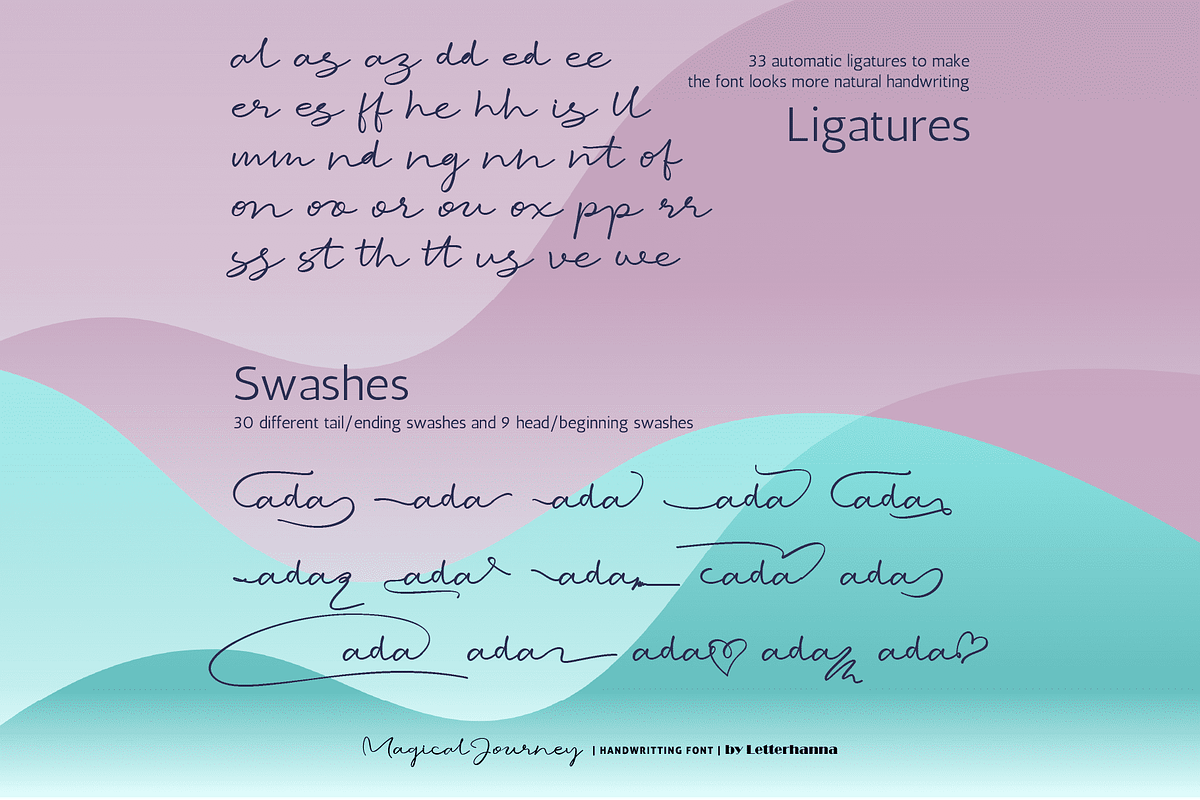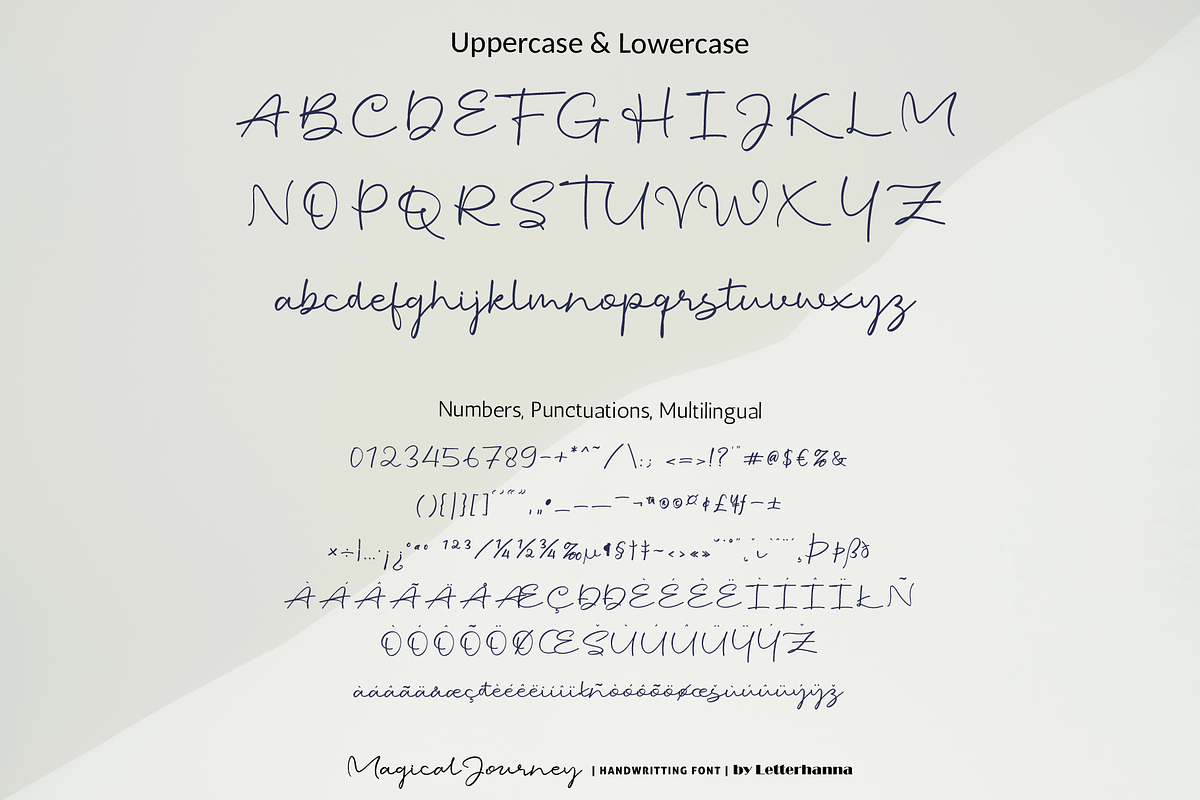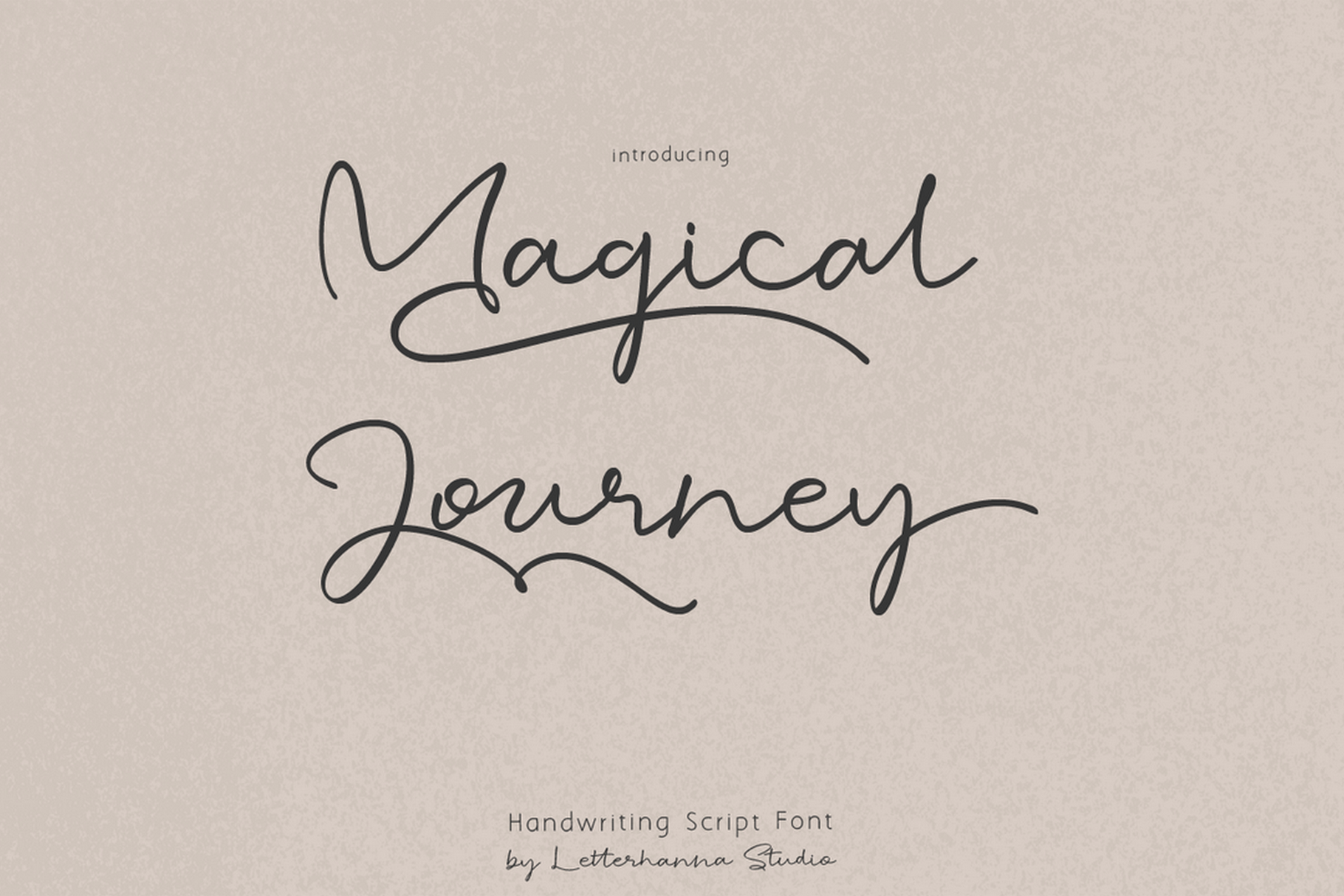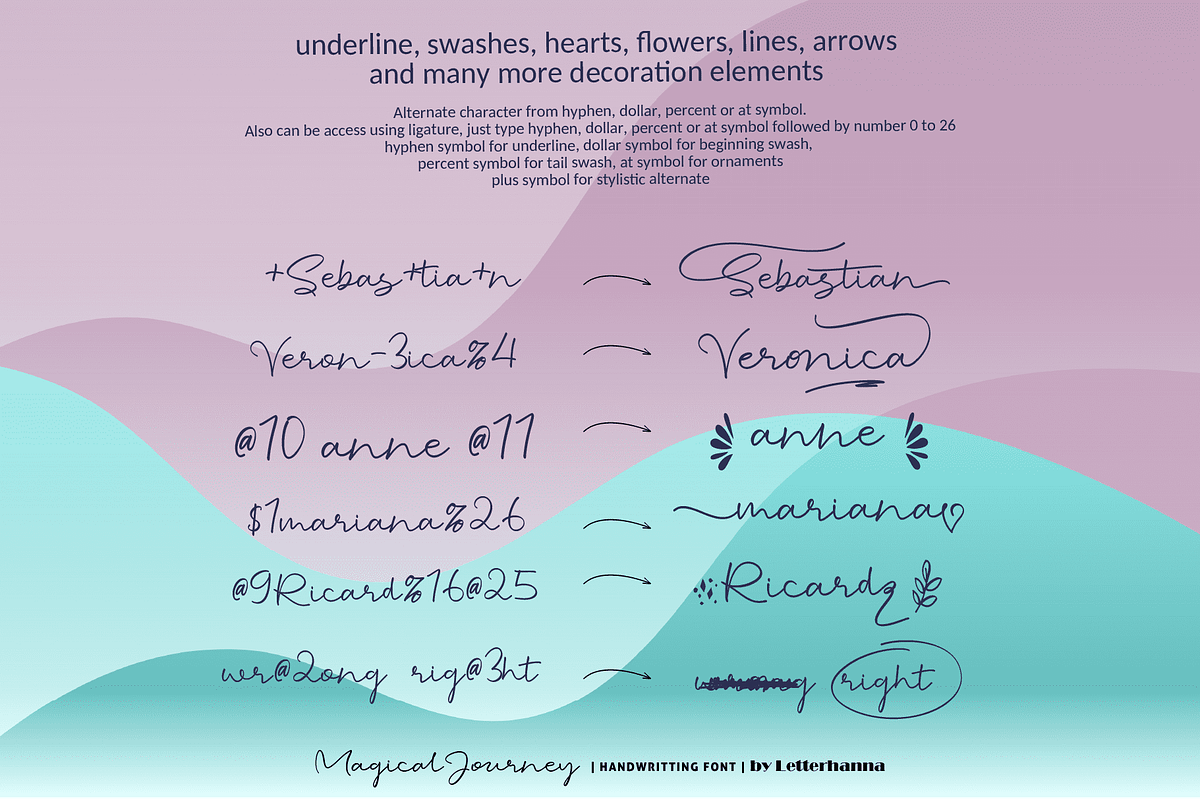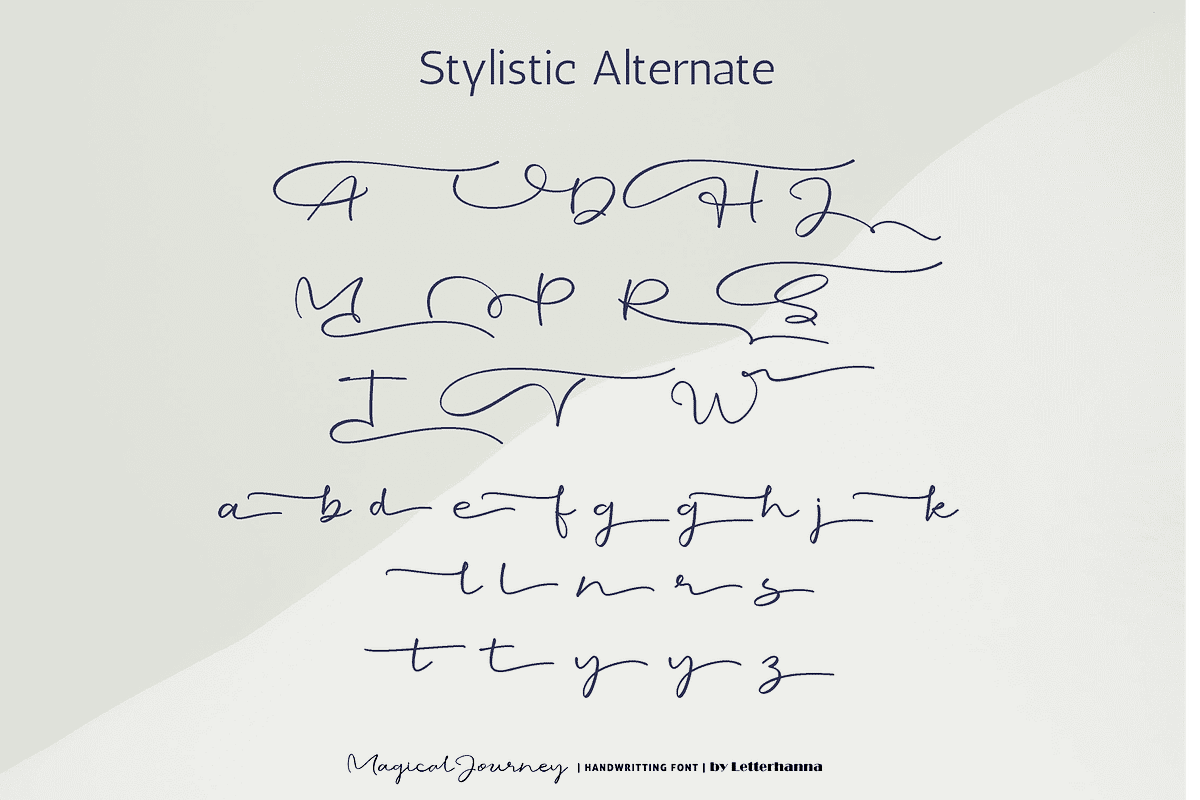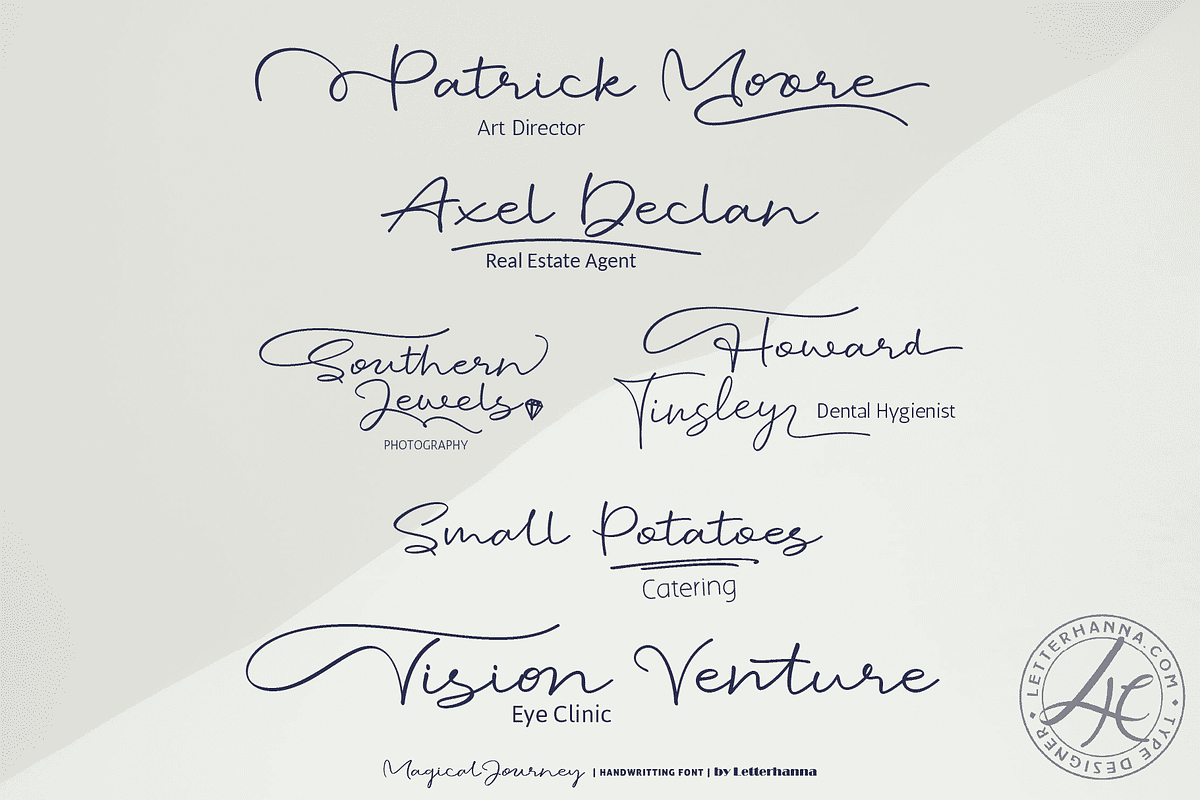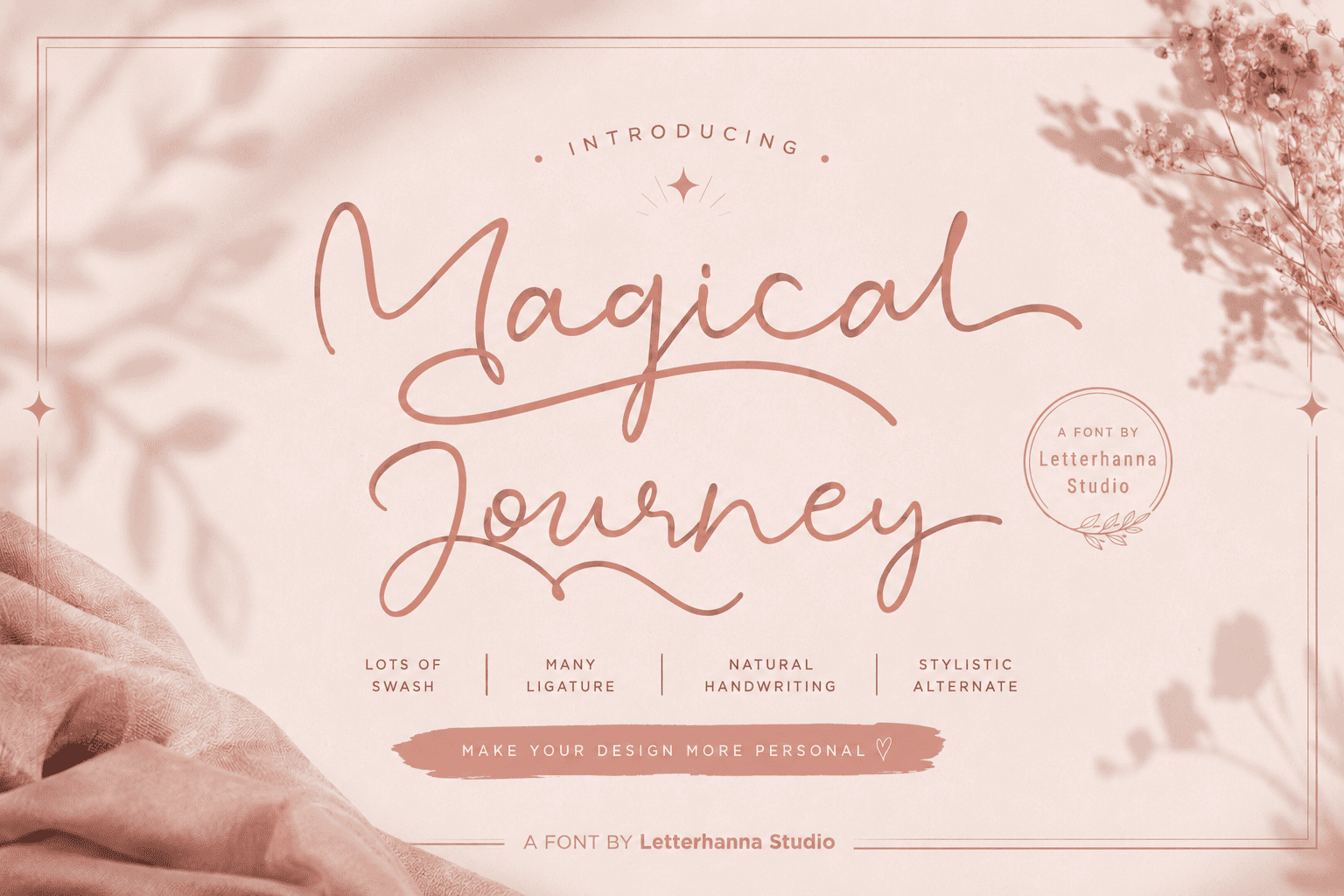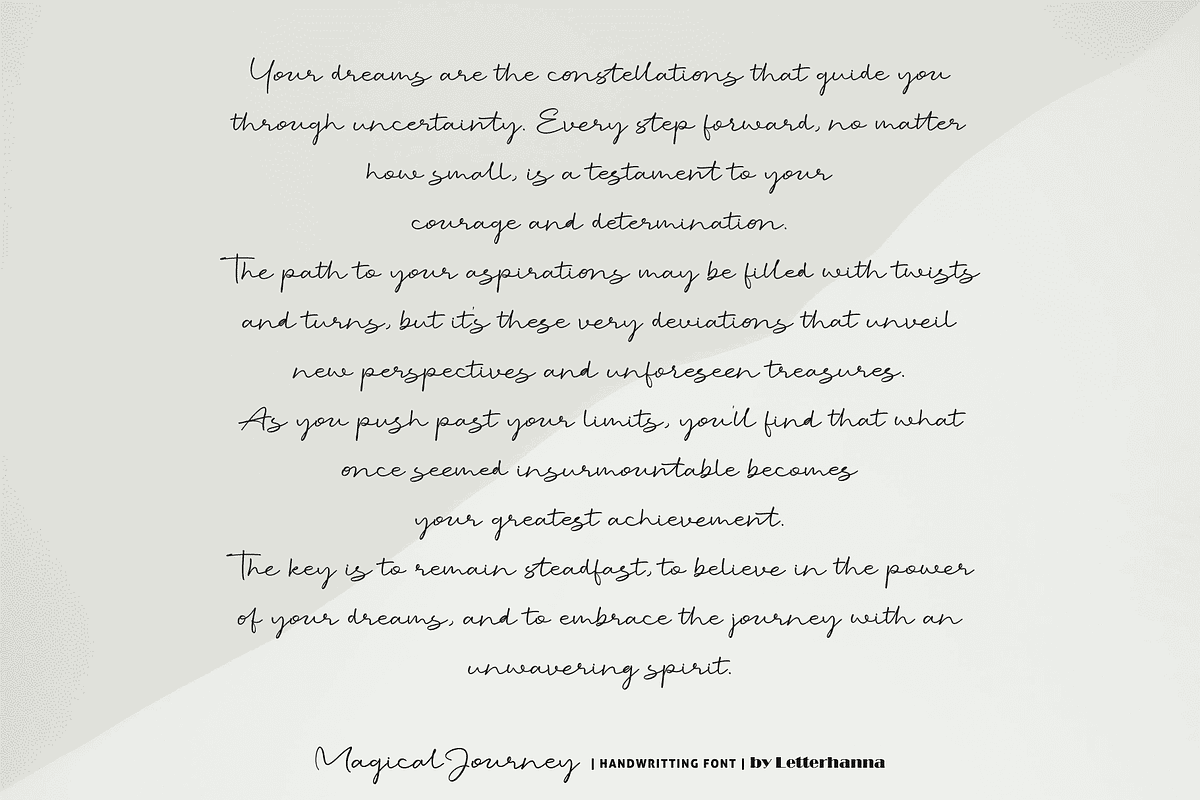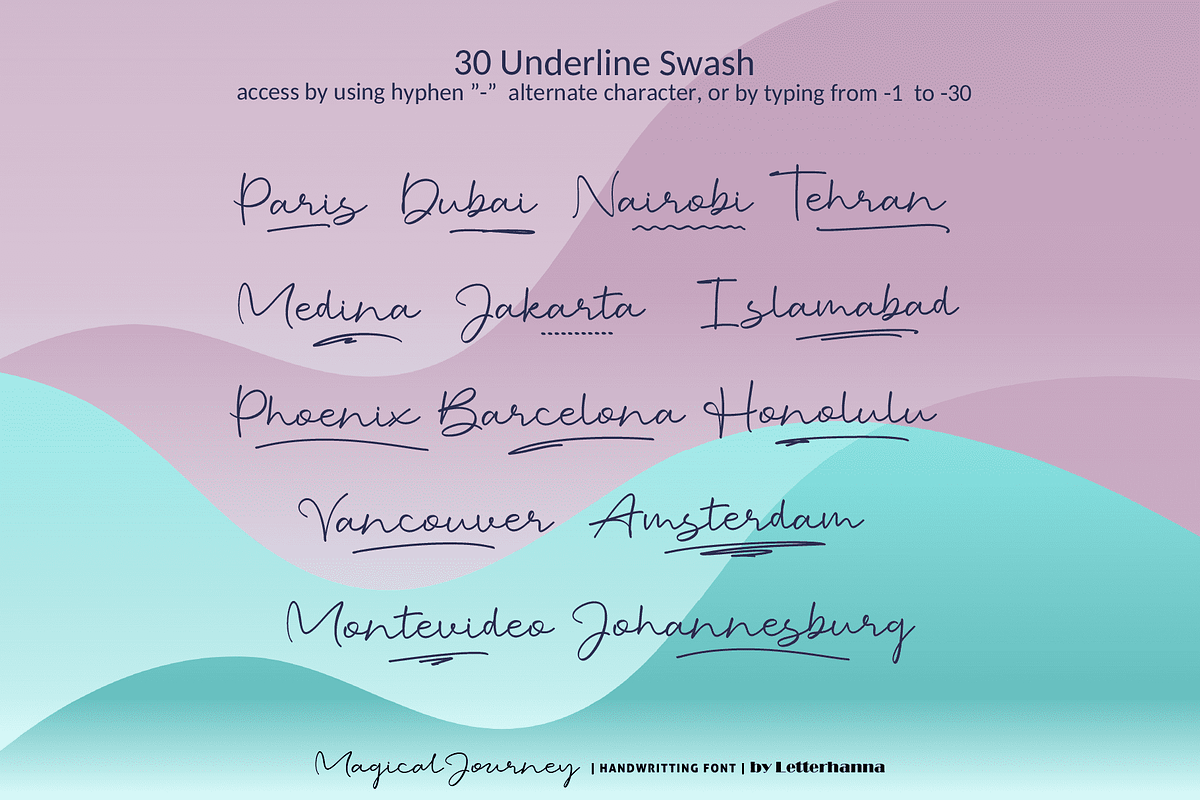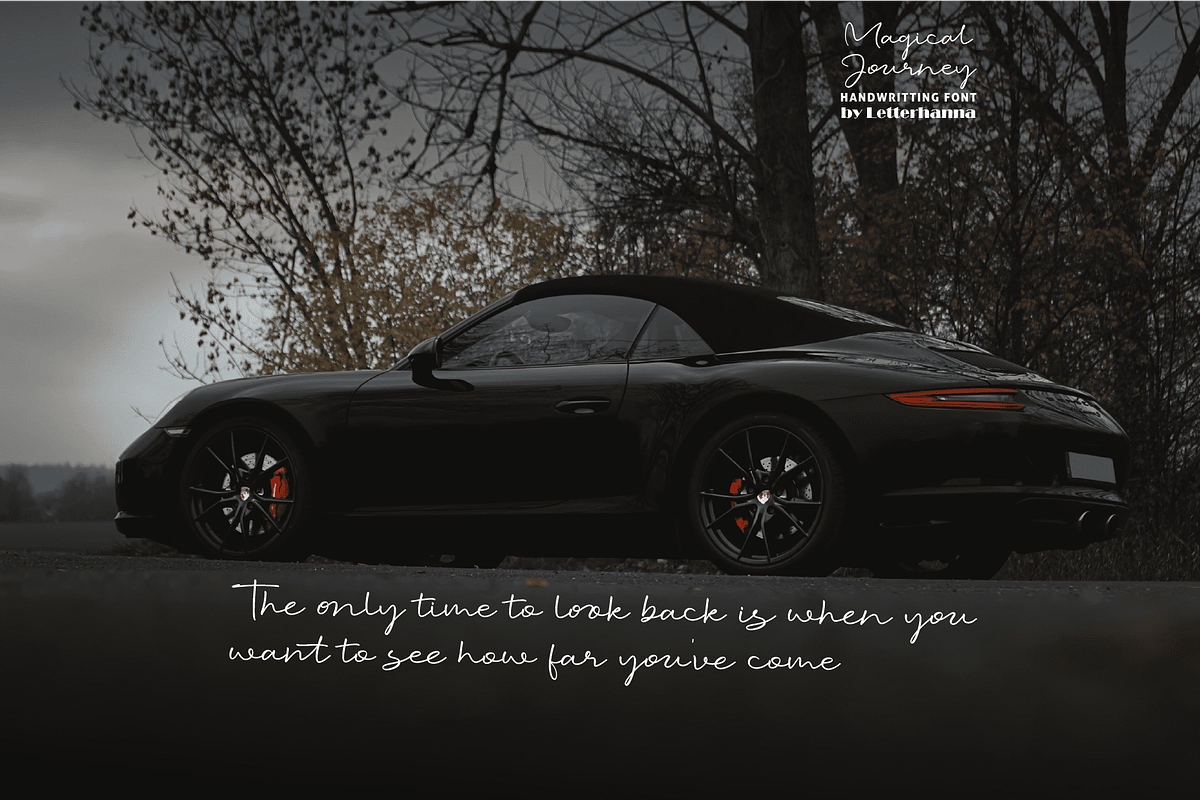
Magical Journey Handwritten Font
"Magical Journey" is a captivating handwritten script font that invites you to embark on a whimsical adventure through its enchanting curves and graceful strokes. This font encapsulates the essence of imagination and wonder, as if each letter carries the secrets of a fantastical realm waiting to be explored. With its intricate details and flowing lines, "Magical Journey" captures the spirit of curiosity and excitement, making it the perfect choice for projects that seek to infuse a touch of magic into every word. Let this font be your guide as you set forth on a typographic expedition filled with creativity and charm.
Magical Journey Font was created to look as close to a natural handwritten script as possible by including over 33 natural-looking opentype ligatures, Uppercase and lowercase Stylistic Alternate, a lot of head/beginning swashes and tail/ending swashes. There are also 30 underline swashes included and lot more ornaments, arrow, scribbles, etc.
Easy access all alternate glyphs, swashes, ornaments and underlines just by using ligatures, you can try yourself in the font preview tool.
Stylistic alternate can be access by type plus symbol "+" in front of the original letter, for example type +A to get stylistic alternate of letter A capital.
Underline swashes can be access by type hyphen symbol "-" then followed by number 1 to 30, for example type -3, -22 or -17 etc to get various different underline swashes.
Head/beginning swashes can be access by type dollar symbol "$" then followed by number 1 to 9, for example type $2 or $8 to get various different head/beginning swashes.
Tail/ending swashes can be access by type percent symbol "%" then followed by number 1 to 30, for example type %3 or %15 etc to get various different tail/ending swashes.
Ornaments can be access by type at symbol "at" then followed by number 1 to 26, for example type @4 or @13 etc to get various different ornaments.
Magical Journey Font is also PUA encoded which means you can access all of the glyphs and swashes with ease!
33 Ligatures
Beginning and ending swashes
Underline swashes
Stylistic alternate
Contextual alternate
Ornaments
Easy access swash just by using ligatures